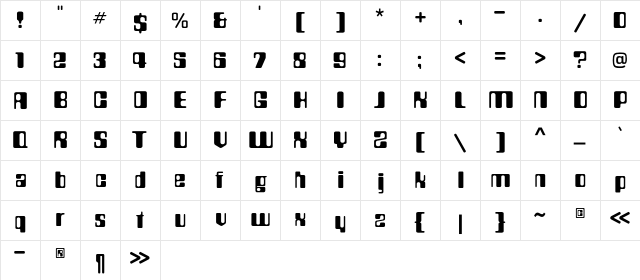
CountdownC Regular Font Preview
CountdownC Regular
Design Context for CountdownC Typeface
CountdownC takes a measured approach to typography — its balanced proportions and neutral character make it a reliable workhorse for both digital and print work.